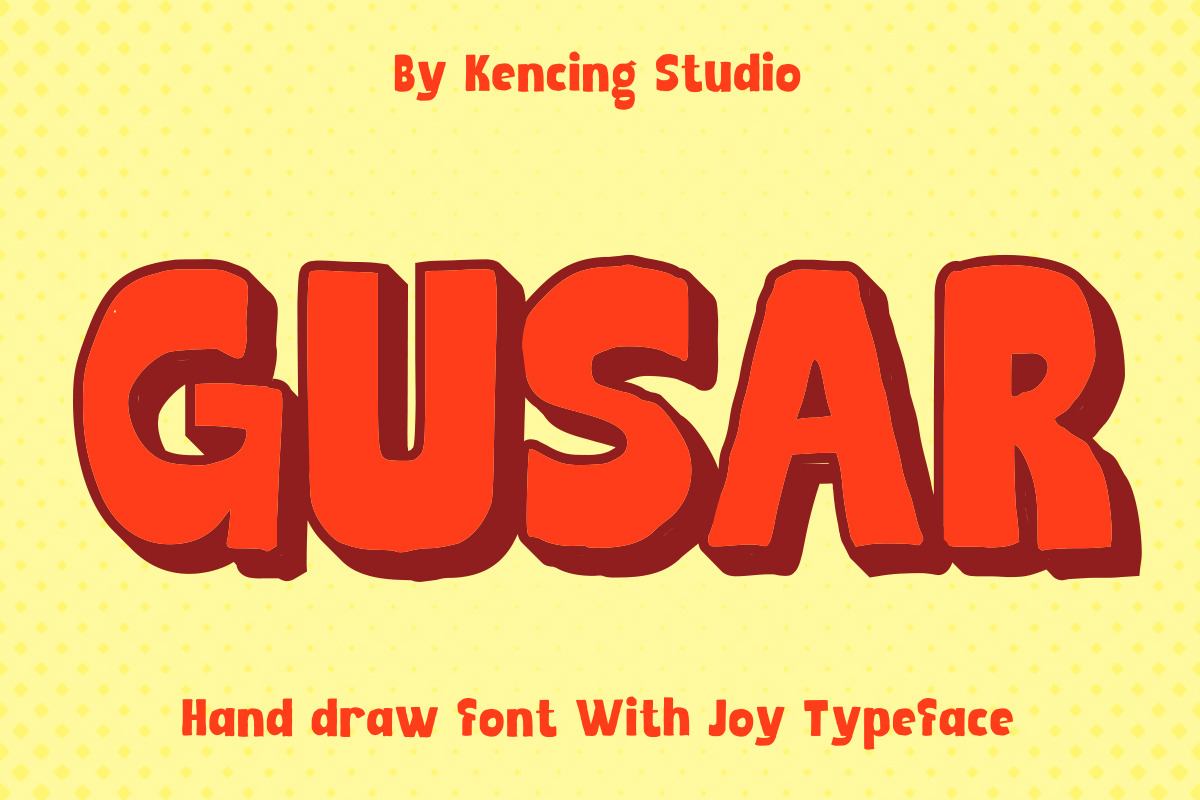
Gusar - Hand draw Joy Font Free Download
Gusar - Hand Draw Joy Font Free Download
Gusar - Hand Draw Joy Font Free Download is a lively and cheerful typeface that brings a sense of fun and creativity to your designs. With its hand-drawn charm and playful curves, Gusar is perfect for children's books, playful branding, DIY projects, party invitations, and anything that needs a burst of positive energy.
The font’s whimsical style captures the feel of carefree doodles and joyful expression, making your text come to life with personality. Whether you're working on colorful packaging or a quirky poster, Gusar adds a human, heartfelt touch that connects with viewers.